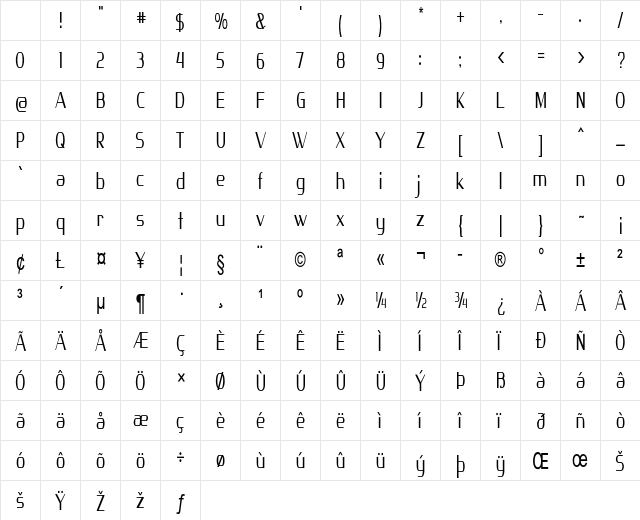
Complete Englesan Condensed Regular glyph index. Displaying only characters natively supported by Englesan Condensed Regular font.
Englesan is a composed and adaptable typeface that performs quietly and consistently across a wide range of design contexts. Its narrow stance lets it pack a punch even in space-constrained designs.